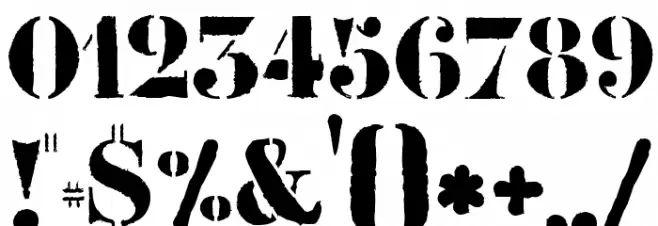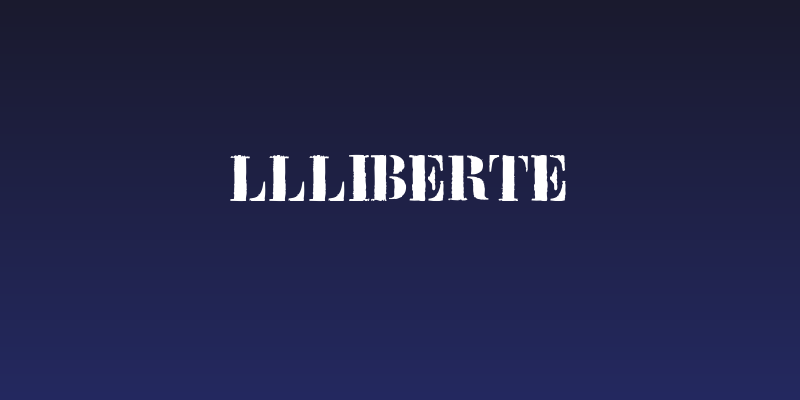
LLLiberte Font
LLLiberte Description
This font features a bold and impactful stencil design, characterized by its distinct cut-out sections within each letterform. The uppercase and lowercase letters maintain a consistent weight, providing a strong visual presence. The numbers and special characters follow the same stylistic approach, ensuring uniformity across all glyphs. The font's rugged and industrial aesthetic makes it ideal for projects requiring a bold statement. Its unique style is reminiscent of military or industrial signage, offering a sense of strength and authority.
| Overall Style | Industrial, Bold, Stencil |
| Proposed Projects | Ideal for posters, signage, branding, and any project needing a strong, impactful typeface. |